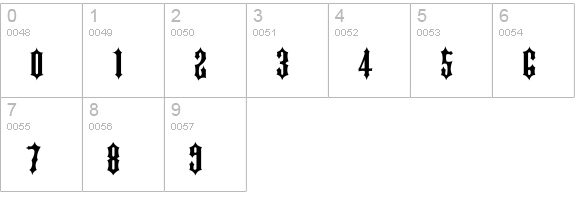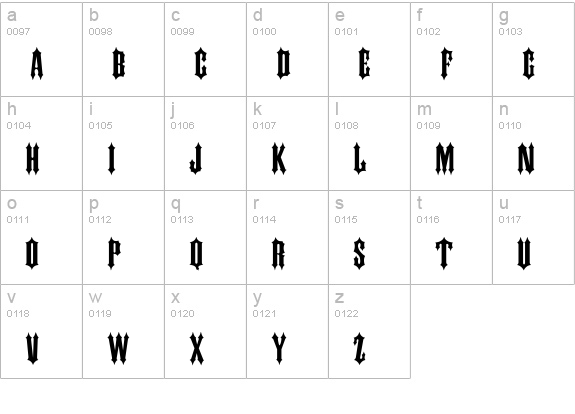
IRONWOOD-Medium Wd Font Details
IRONWOOD-Medium Wd is a balanced, medium-weight variant in the IRONWOOD typeface family \xE2\x80\x94 well suited to sub-headlines, navigation, and balanced editorial work.
IRONWOOD-Medium Wd is a captivating and versatile font that exudes strength and elegance. Its bold and sturdy letterforms make it perfect for headlines, logos, and any design project that requires a powerful and impactful visual presence. With its medium weight, this font strikes the perfect balance between boldness and readability, ensuring that your message is delivered with clarity and confidence. The unique design of IRONWOOD-Medium Wd sets it apart from other fonts, making it a standout choice for both print and digital media. Its sharp edges and strong lines give it a modern and contemporary feel, while its clean and balanced proportions create a sense of professionalism and sophistication. One of the most remarkable aspects of IRONWOOD-Medium Wd is that it is available for free download at FontsMarket.com. This means that you can effortlessly add this impressive font to your collection without spending a dime. Whether you are a professional designer or a hobbyist, having access to high-quality fonts like IRONWOOD-Medium Wd can greatly enhance the visual impact of your work. Don't miss out on the opportunity to elevate your designs with the bold and captivating IRONWOOD-Medium Wd font. Download it for free at FontsMarket.com and unleash your creativity with this powerful and versatile typeface.